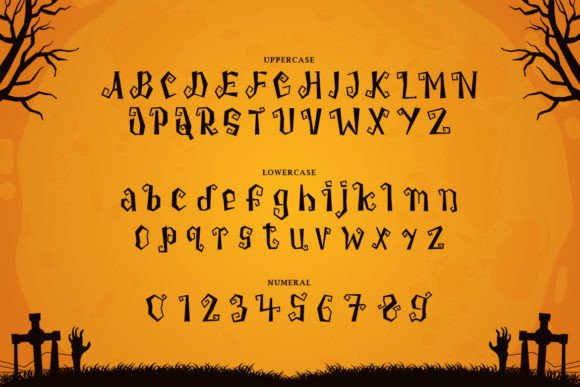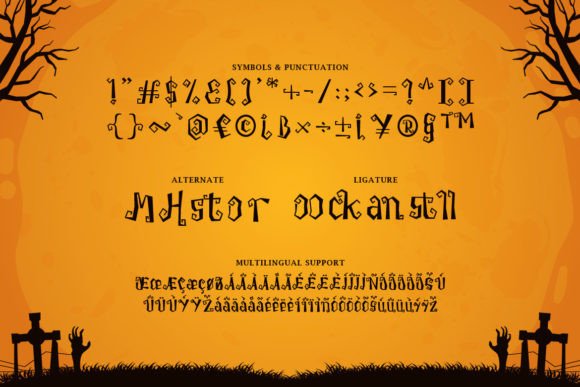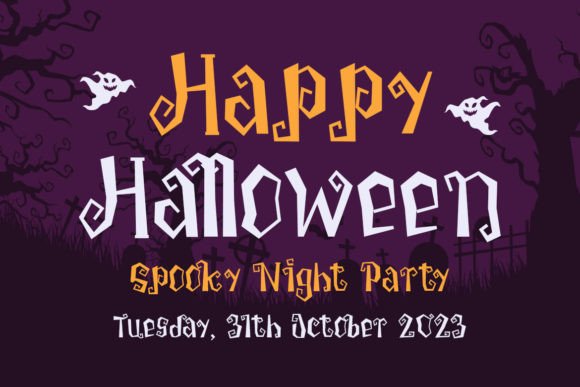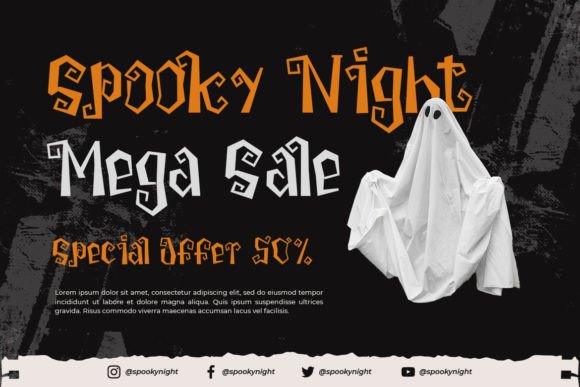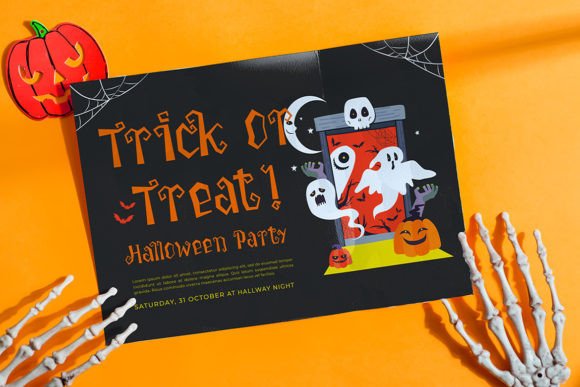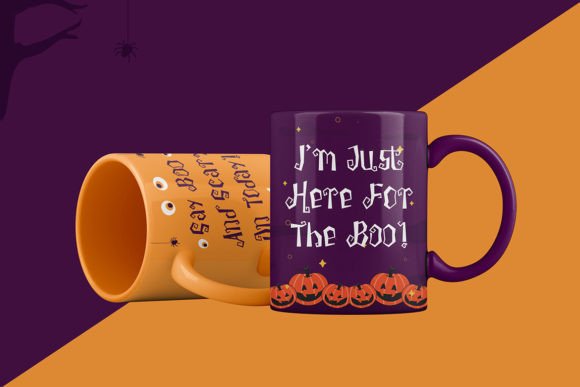
Introduction to Hallograve Font
Hallograve is a dark, spooky display font.
Add it to your scary crafts, horror movie posters, t-shirts, and anything else that requires a spectacular look .
Key Features of Hallograve Font